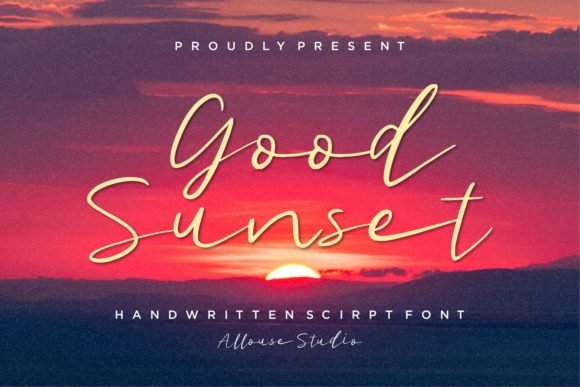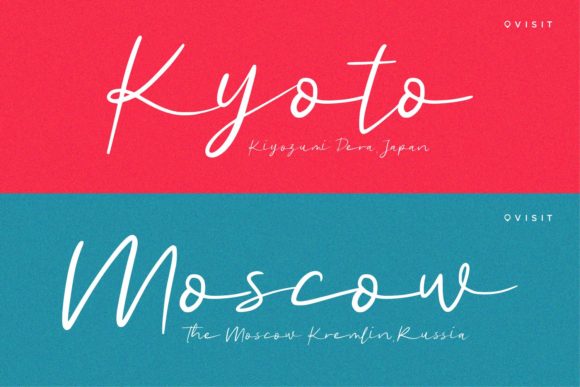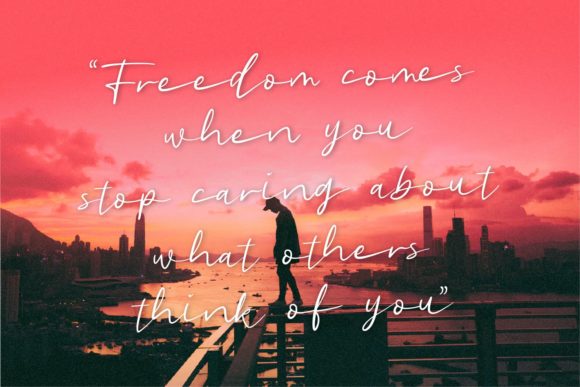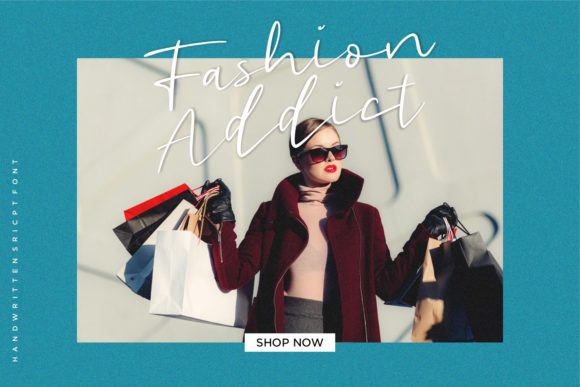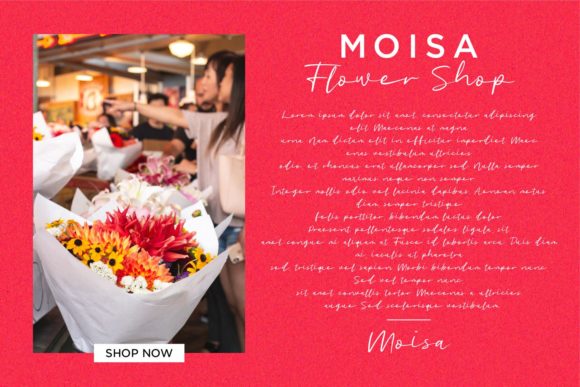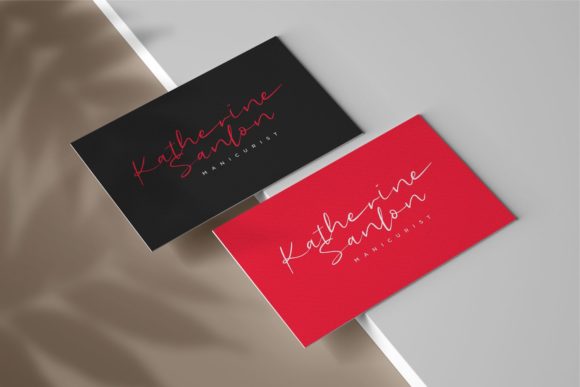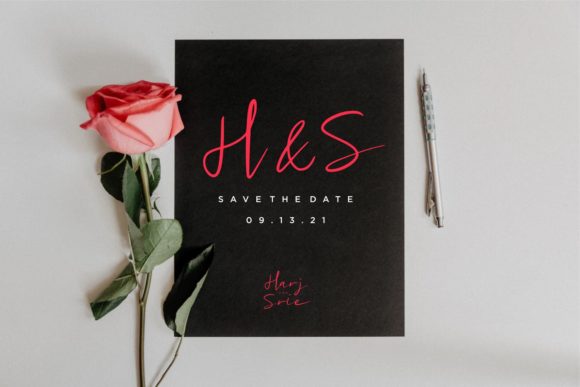
Unveiling the Perfect Sunset: A Designers’ Dream Font
As a designer, there’s nothing quite like the thrill of creating something beautiful from scratch. You’ve spent hours brainstorming ideas, experimenting with colors, and perfecting every detail. But sometimes, it’s the smallest element that makes all the difference – a font that captures the essence of your design and leaves a lasting impression. For me, that moment came when I stumbled upon the enchanting Good Sunset Font.
This exquisite handwritten font is a masterclass in elegance and sophistication. Thin lines and delicate curves come together to create a truly unique visual experience. Whether you’re crafting a wedding invitation, a heartfelt thank-you card, or a custom logo, the Good Sunset Font is the perfect accompaniment to your creative vision.
Key Features of Good Sunset Font
- Font Family: Good Sunset Font is a unique, hand-drawn script font that adds a touch of elegance and sophistication to any design.
- Unique Characteristics: Features a distinctive, hand-painted feel with subtle texture and imperfections, giving it a warm and inviting appearance.
Good Sunset Font Review
Overall, I have mixed feelings about the Good Sunset Font. On one hand, there are some nice aspects to it. ✨ The font is well-suited for creating a warm and inviting atmosphere, which is perfect for designs related to travel, relaxation, or summer vibes. The font’s unique, hand-drawn style adds a touch of personality to any project.
- ✨ The font’s warm, sunset-inspired colors are aesthetically pleasing and can add a cozy feel to designs.
- ✨ The font is highly customizable, allowing designers to adjust the color palette, font size, and style to fit their needs.
- ✨ The font is available in a range of weights, making it easy to use for both headings and body text.
However, there are some limitations to consider. ⚠️ The font may not be the best choice for formal or professional designs, as its casual, handwritten style may come across as unprofessional. Additionally, the font may not be suitable for small text sizes, as the letters can become difficult to read.
In terms of overall impression, I would give the Good Sunset Font 3 out of 5 stars. While it has some nice qualities, its limitations make it less versatile than some other fonts on the market. However, it can still be a great choice for the right project, and its unique style is sure to stand out.
Tips for Getting the Most Out of Good Sunset Font
To get the most out of Good Sunset Font, use it for:
- Travel and adventure-themed designs
- Sunrise and sunset-inspired graphics
- Beach and coastal-themed projects
Common use cases for Good Sunset Font include:
- Travel brochures and posters
- Social media graphics and ads
- Wed
Playfair Display is an elegant, high-end serif font ideal for luxury branding, wedding invitations, and high-end publications. It features intricate details and a classic feel. Compared to Good Sunset Font, Playfair Display is more formal and sophisticated, making it a better choice for projects requiring a touch of sophistication.
Great Vibes is a modern, elegant script font perfect for creative projects, wedding invitations, and branding. It features a flowing, handwritten feel and is highly customizable. Unlike Good Sunset Font, Great Vibes is more versatile and can be used in a variety of settings, from casual to formal.
Pacifico is a beautiful, modern script font ideal for creative projects, branding, and packaging. It features a relaxed, beachy feel and is highly customizable. Compared to Good Sunset Font, Pacifico is more casual and laid-back, making it a better choice for projects requiring a relaxed, summer vibe.